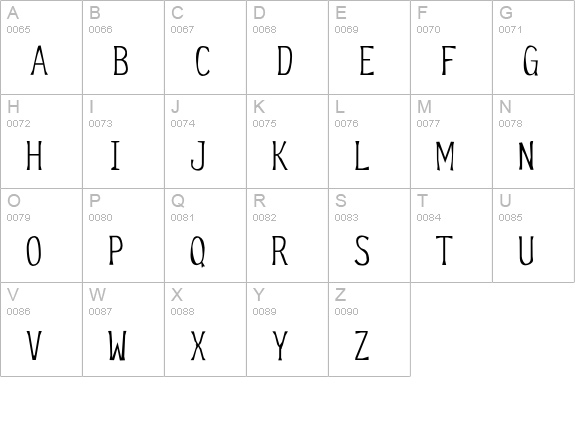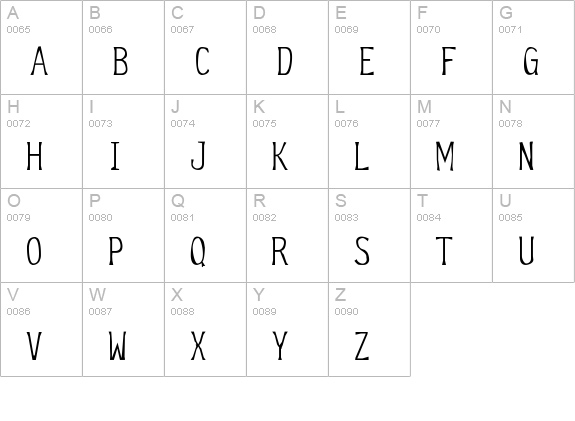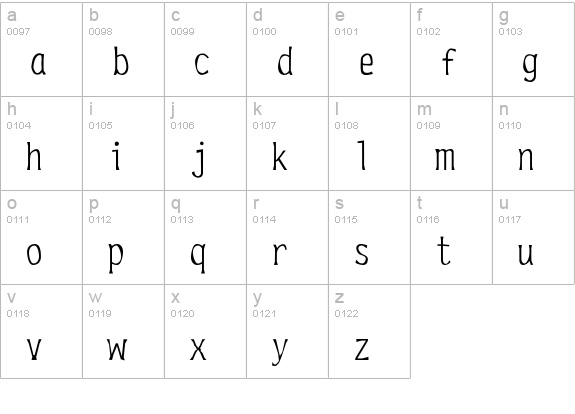
GothicBlond-Slim Font Details
GothicBlond-Slim font is an elegant and stylish typeface that exudes a sense of sophistication and mystery. Its slender, slender letterforms create a gothic-inspired look that is both captivating and unique. The intricate details of this font make it perfect for adding a touch of drama to any design project. Best of all, GothicBlond-Slim font is completely free to download at FontsMarket.com. With just a few clicks, you can add this stunning font to your collection and start using it in your creative endeavors. Whether you're working on a poster, logo, or website design, GothicBlond-Slim font is sure to make a bold statement and leave a lasting impression on your audience. Download it today and let your creativity shine with this exceptional typeface.